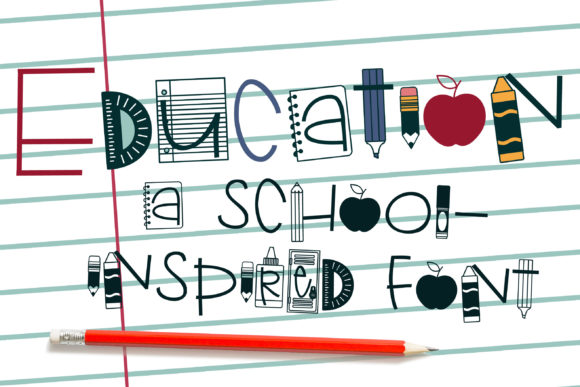
Are you looking for the best font for games that will give your designs a unique touch? Look no further than Education Font, the latest creation from Illustration Ink. This handmade decorative font features school-like elements throughout, making it perfect for any project that requires a playful and creative touch.
One of the things that makes Education Font stand out is its thin letters, which beautifully combine with the icons to create a lovely and eye-catching design. Whether you're designing a logo, a website, or a mobile app, this font will help you elevate your work to the next level.
But Education Font isn't just a pretty face. It's also incredibly versatile, making it perfect for a wide range of applications. Whether you're designing for print or digital, this font will deliver the perfect combination of style and readability.
So why should you download Education Font today? For starters, it's the best font for games, with a playful and creative look that's perfect for capturing the attention of gamers and non-gamers alike. But it's also an incredibly versatile font that will help you take your design work to the next level.